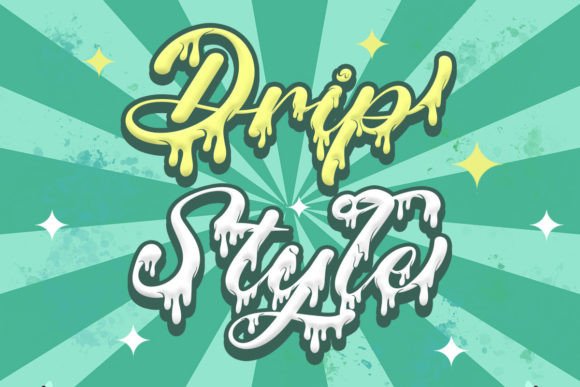
Welcome to the world of enchantment, where letters dance and words come alive. Allow us to introduce you to Drip Style Font, a captivating script font designed to make your designs irresistibly alluring. Drip Style is not just a font; it's a journey through creativity, a gateway to a world where imagination reigns supreme.
With its graceful curves and playful swashes, Drip Style Font captivates the eyes, drawing readers into your words like a magnet. Its elegant strokes evoke a sense of nostalgia, reminiscent of handwritten letters that carry a touch of warmth and intimacy. Drip Style is more than just a font; it's an experience, a way to make your words resonate with emotion.
Whether you're crafting cake menus that tempt taste buds or creating captivating candy store posters, Drip Style Font is your perfect companion. Its versatility extends to almost any design that seeks to captivate and persuade. Drip Style breathes life into your designs, making them irresistible to customers, compelling them to engage with your products.
Dive into the world of Drip Style Font and let your creativity soar. Unlock the font's potential, and watch as your designs transform into masterpieces that leave a lasting impression. Make a statement with every word, captivate your audience, and create designs that resonate with elegance and charm. Embrace Drip Style Font and embark on a journey of creative possibilities.